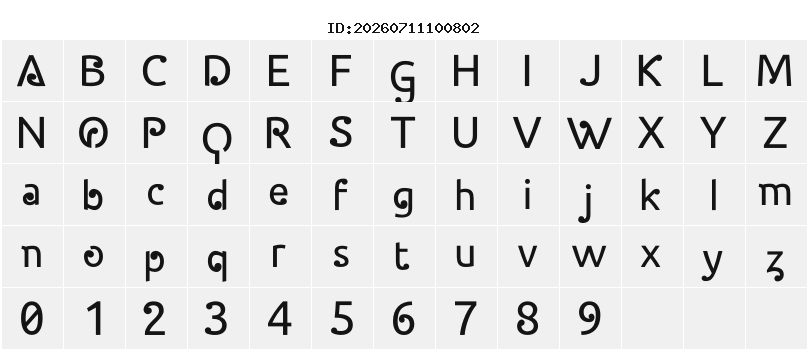
Halida Sans Preview
• Font Name: Halida Sans
• Full Font Name: Halida Sans Normal
About Halida Sans.otf
Halida Sans.otf is a modern, elegant sans-serif font designed for ultimate readability and visual harmony. Perfect for branding, headlines, web design, and print materials.